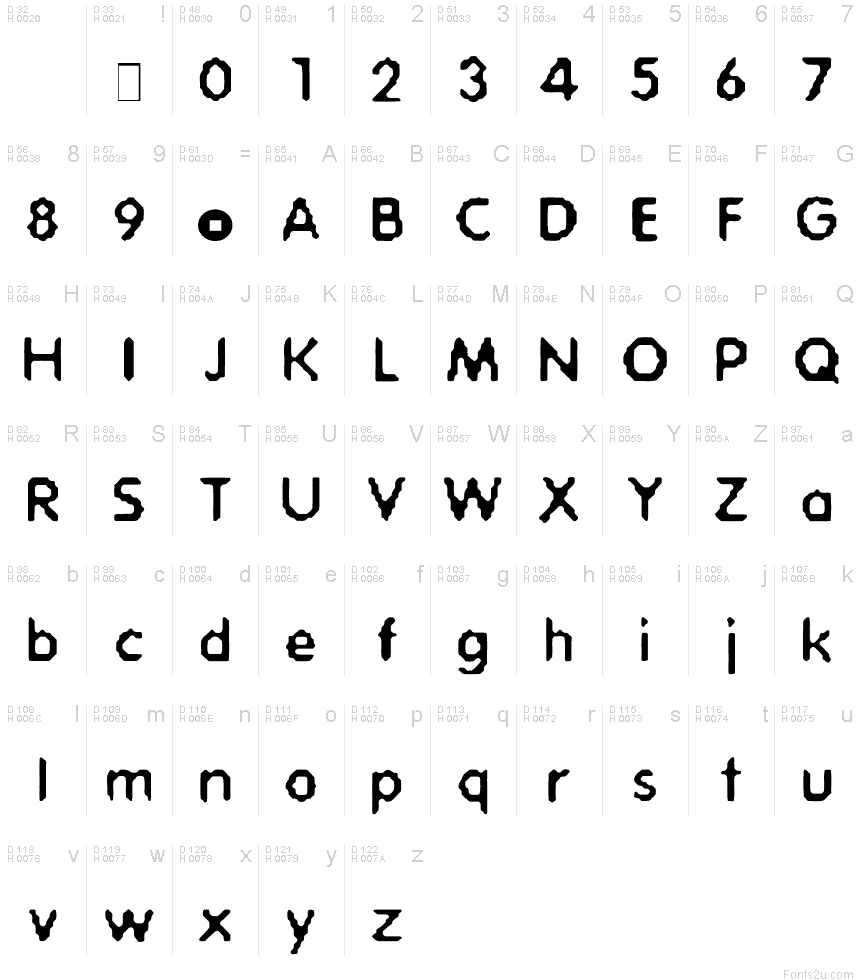
Acid Bath
Acid Bath font is a free distorted display typeface that looks like it’s been left to melt in a chemical spill. Thick, inky strokes wobble and bulge, with edges that feel half-organic, half-industrial, giving every word a warped, unsettling presence. The spacing stays surprisingly readable, so you get maximum chaos in the silhouettes without losing the message.
Using Acid Bath, this free font shines on horror posters, metal or punk album covers, creepy game titles, Halloween event flyers, edgy zines, and YouTube or streaming thumbnails. Its chunky, dripping forms grab attention at large sizes, turning short titles into unsettling logos. Pair Acid Bath with a plain, narrow sans serif for small supporting text to keep the overall layout legible while the headline does the damage.